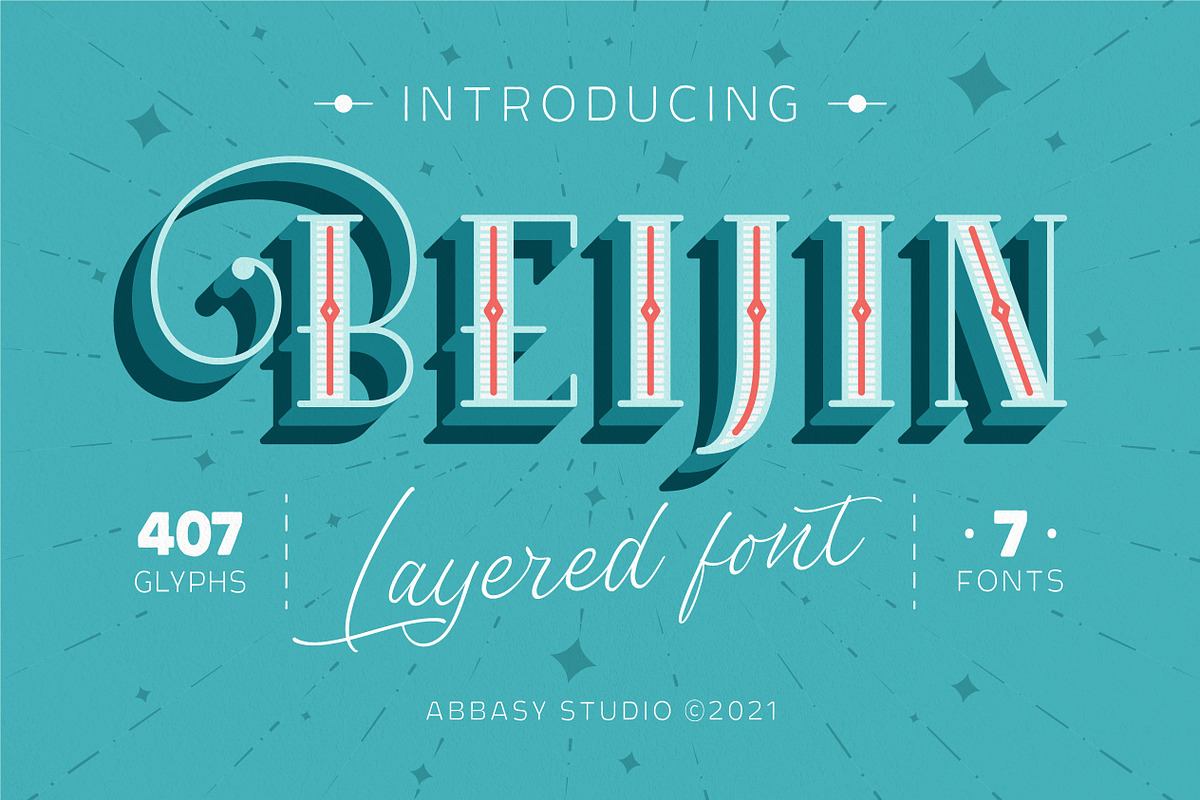
Introducing the Beijin Layered Font, a bold, retro-futuristic typeface designed by Vladimir Nikolic. This font features a distinctive three-dimensional, extruded effect, with each letter appearing carved from a solid block, conveying strength and stability. The subtle hatch marks add texture, enhancing its embossed appearance.
Character Set: Uppercase letters, numerals, and basic punctuation
Usage Recommendations:
The Beijin Layered Font is ideal for logos, posters, headlines, and designs requiring a bold, impactful typeface. Its unique style adds a touch of retro-futurism to your projects.